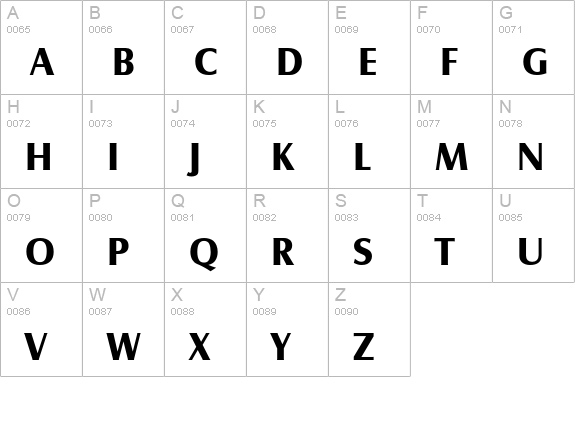
CastleEF-Bold is a strong, high-contrast variant in the CastleEF typeface family \xE2\x80\x94 well suited to headlines, attention-grabbing titles, and strong calls-to-action.
CastleEF-Bold is a striking and bold font that exudes elegance and sophistication. With its strong, clean lines and commanding presence, this font is sure to make a statement in any design project. Perfect for headlines, titles, and branding, CastleEF-Bold demands attention and leaves a lasting impression. What's even better is that CastleEF-Bold is available for free download at FontsMarket.com. Now you can elevate your designs with this stunning font without breaking the bank. Don't miss out on this opportunity to add a touch of luxury and style to your projects with CastleEF-Bold.